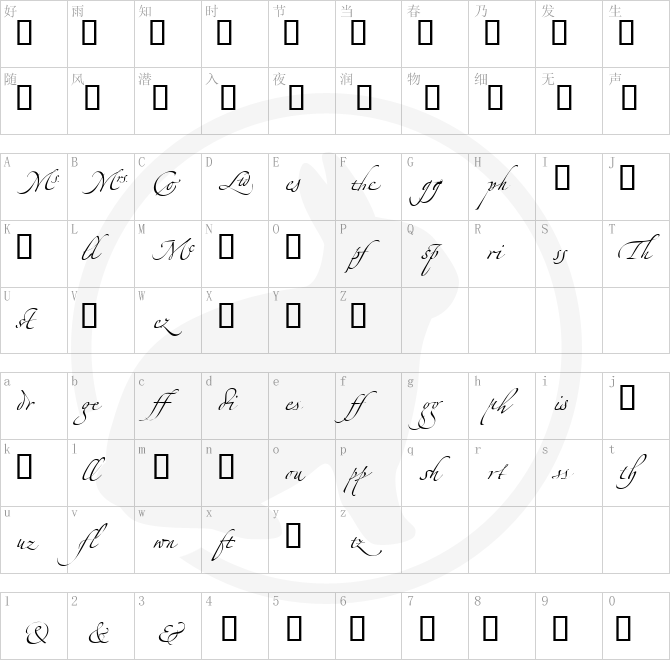
- Font Name:Zapfino Linotype Ligature
Zapfino-Linotype-Ligature.ttf is a very beautiful artistic font, Zapfino-Linotype-Ligature.ttf is widely used in the design and printing of various books and pictures,Zapfino-Linotype-Ligature.ttf has a strong visual impact,Zapfino-Linotype-Ligature.ttf is a commonly used font in newspapers, magazines and books, and is used in posters, e-commerce Poster design, store design, logo design, font design and other fields.Zapfino-Linotype-Ligature.